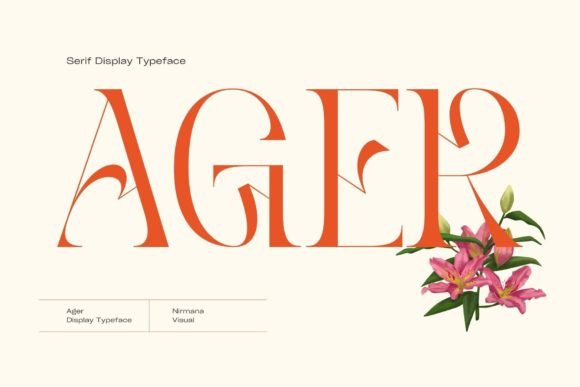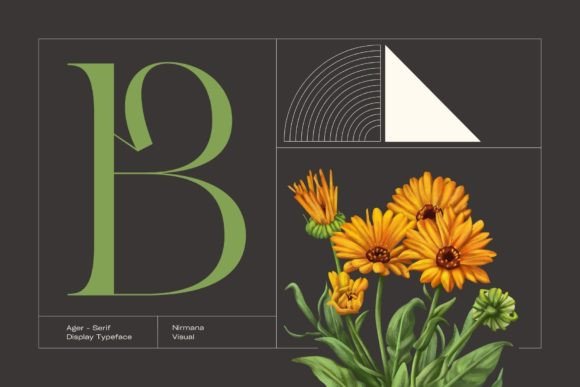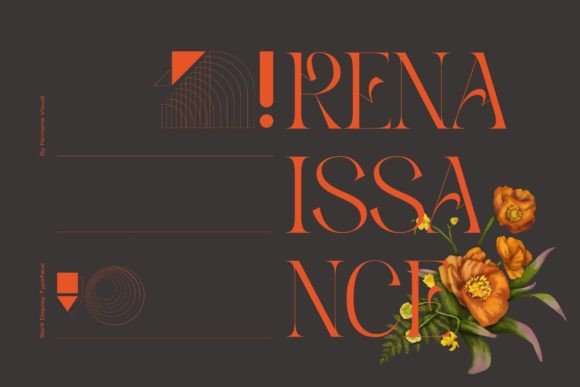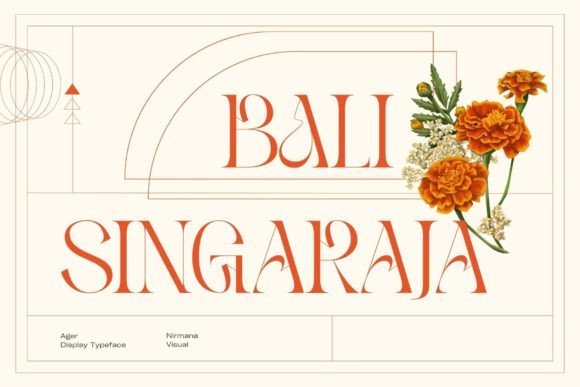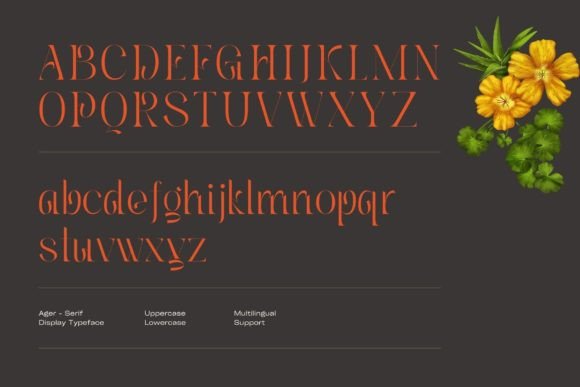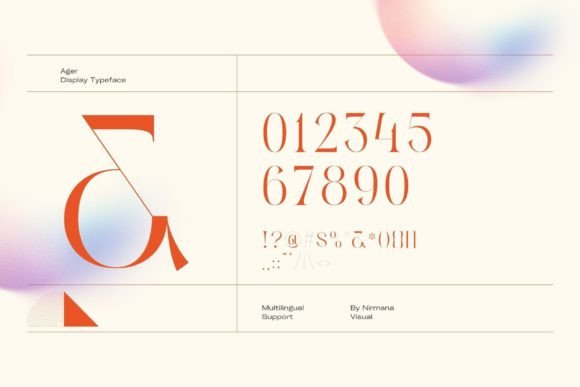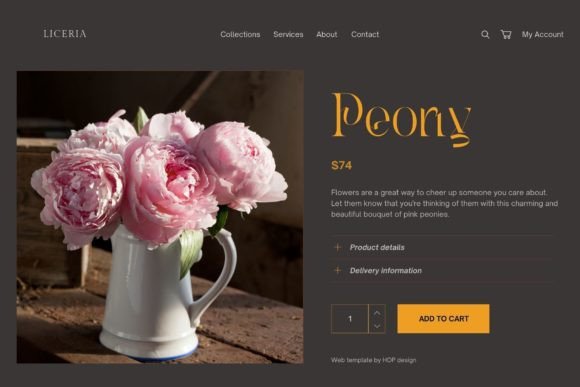
Ager Font
Ager: An Art Nouveau-Inspired Font
Ager is an elegant font inspired by the Art Nouveau design era, bringing sophisticated typographic harmony to various creative applications. This versatile typeface is specifically designed for luxury, lifestyle, and fashion brands[4].
Key Features of Ager
• Art Nouveau Style: Offers elegant, flowing letterforms[4].
• Luxury Design: Created specifically for high-end brands[4].
• Complete Character Set: Includes both uppercase and lowercase letters[4].
Best Uses for Ager
Thanks to its versatile characteristics, Ager works especially well for:
When using Ager in your designs, keep these tips in mind:
• Use it to create elegant, sophisticated designs[4].
• Take advantage of its Art Nouveau characteristics for period-inspired projects[2].
• Let its flowing typography enhance luxury branding[4].
• Utilize both uppercase and lowercase letters for versatile designs[4].
To sum up, Ager is an excellent choice for designers seeking an elegant Art Nouveau-inspired font. Its versatility makes it perfect for various luxury and lifestyle projects. Whether you’re creating logos, developing social media content, or designing advertisements, Ager offers the perfect blend of historical inspiration and modern sophistication.
Furthermore, Ager’s distinctive design allows it to shine in contexts where both elegance and sophistication are key. From branding to product design, this font can elevate your projects with its refined style. Also, its Art Nouveau-inspired appearance works particularly well in designs that aim to make a luxurious impact.
In conclusion, Ager truly captures the essence of Art Nouveau design in modern typography. Its ability to enhance various applications shows how well it can serve creative needs. Therefore, for those wanting to add a touch of elegant sophistication to their work, Ager can transform any design with its distinctive style. Ultimately, it’s perfect for designers aiming to make a refined, artistic impact across luxury-oriented projects.